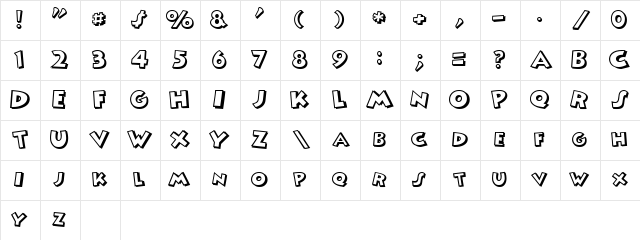
Disney Mickey Regular Free Font
Disney Mickey Regular
Design Context for Disney Mickey
Disney Mickey is a composed and adaptable typeface that performs quietly and consistently across a wide range of design contexts.